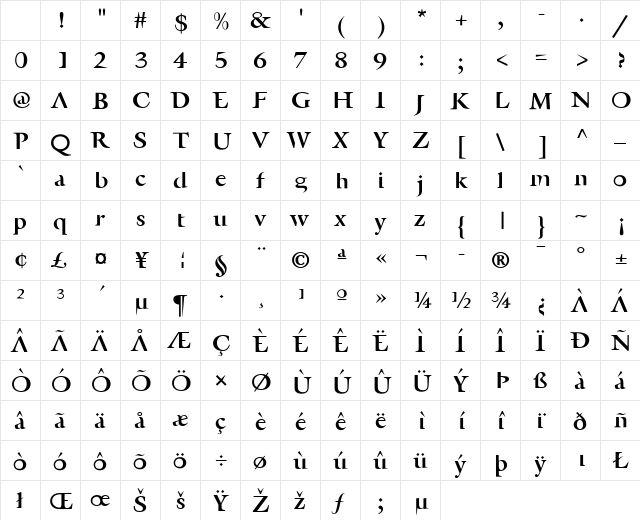
Complete AFRetrospecta Bold glyph index. Displaying only characters natively supported by AFRetrospecta Bold font.
AFRetrospecta wears its vintage influences proudly, with letterforms that recall mid-century signage, classic packaging, and nostalgia-driven design. Its bold stroke weight gives it real presence on the page.
Font Pairing: Combine AFRetrospecta with a simple slab or neutral sans - period-accurate companions reinforce the vintage feel without competing for attention.
Pro Tip: Lean into AFRetrospecta's period character by pairing it with aged paper textures, muted colour palettes, and vintage illustration styles.